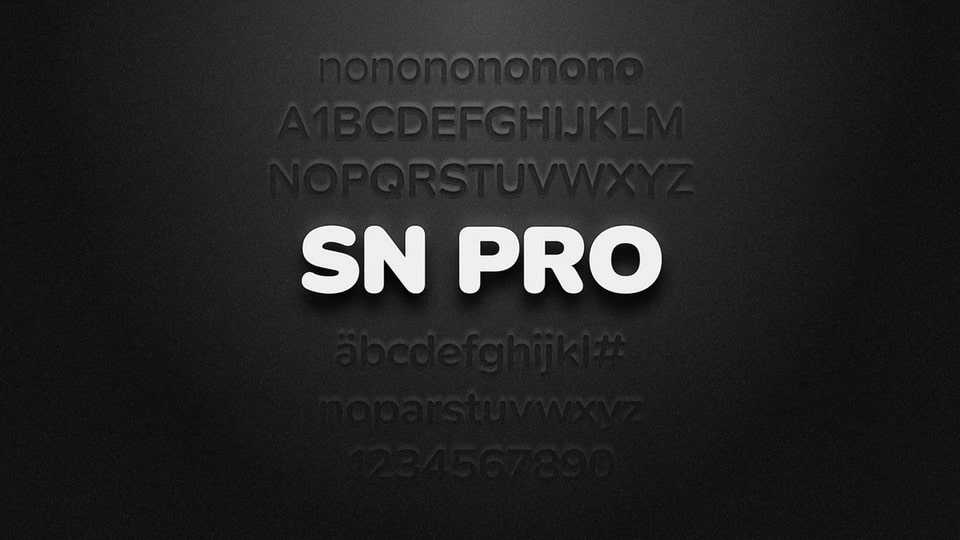
Download SN Pro font, a friendly sans serif typeface designed for the Supernotes app. SN Pro is based on Nunito, a brilliant rounded font designed by Vernon Adams, and has carefully re-designed characters, improved support for Markdown and ligatures.
Designer: Supernotes